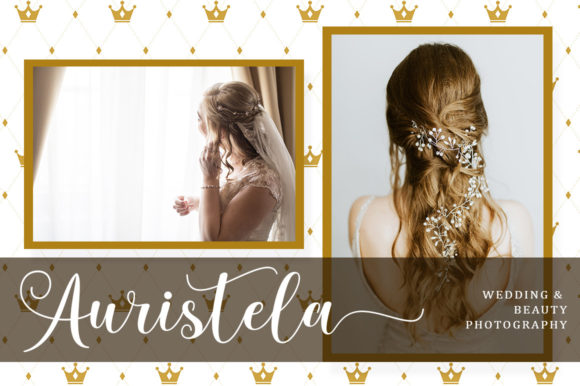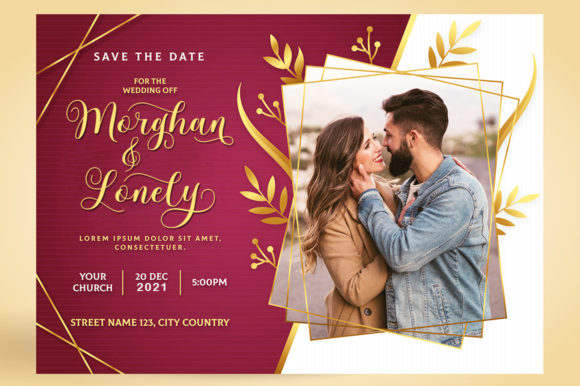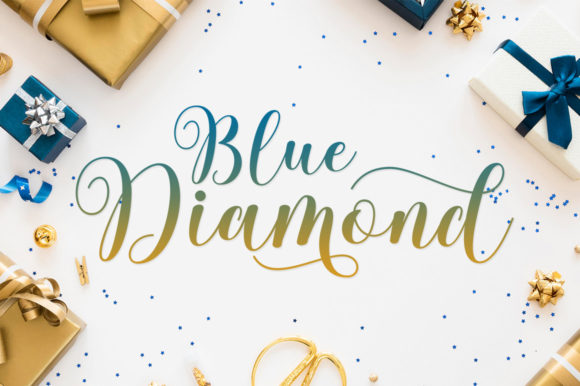
Introduction to Family Queen Font
As a designer, there’s nothing quite like the thrill of finding that perfect font to bring a creative project to life. It’s the moment when all the elements come together, and your vision starts to take shape. For me, that moment often begins with a search for high-quality design resources like the Family Queen Font.
This beautiful and refined script font is a game-changer for any designer looking to add a touch of elegance and sophistication to their work. With its classy, modern look, Family Queen Font is perfect for logos, branding, invitations, stationery, wedding designs, social media posts, and so much more.
What sets Family Queen Font apart is its PUA encoding, making it easy to access all the glyphs and swashes you need for a seamless design experience. Whether you’re working on a free download or a paid project, this font is a valuable asset that’s sure to elevate your designs and leave a lasting impression.
Key Features of Family Queen Font
- High-quality design resource perfect for creative projects, offering a unique and elegant touch.
- Includes a range of stylish and sophisticated characters, ideal for use in branding, logos, and other visual identity elements.
Honest Review: Family Queen Font
I recently had the chance to work with the Family Queen Font, and I must say it’s been a pleasant experience. As a designer, I’m always on the lookout for high-quality fonts that can elevate my creative projects. This font has truly delivered.
What works well: ✨ The Family Queen Font has a beautiful, elegant design that’s perfect for family-related projects, such as wedding invitations, baby showers, or family portraits. The font also features a transparent background, making it easy to combine with other design elements. I also appreciate the fact that it’s a free download, making it an excellent resource for designers on a budget.
- Wide range of characters and symbols
- High-quality design suitable for various creative projects
- Transparent background for easy combination with other design elements
However, I did encounter some limitations: ⚠️ The font is not suitable for use in small text sizes, as it can become difficult to read. Additionally, the font’s design may not be the best fit for modern, minimalist designs.
Overall, I’m impressed with the Family Queen Font. It’s a great resource for designers working on family-related projects, and its high-quality design makes it a valuable addition to any design library. I would definitely recommend it to fellow designers.
Common Use Cases for Family Queen Font
The Family Queen Font is suitable for various design projects, including wedding invitations, branding materials, and social media graphics. Its high-quality design makes it an excellent choice for any creative project that requires a touch of elegance and sophistication.